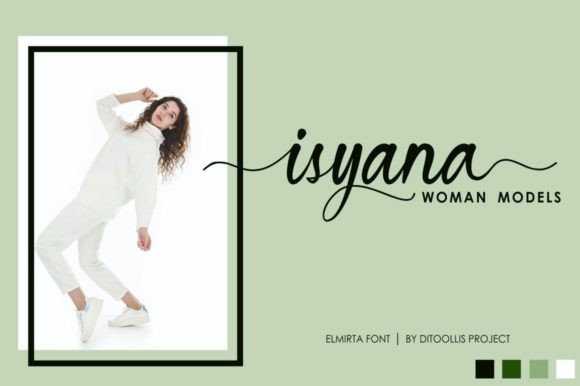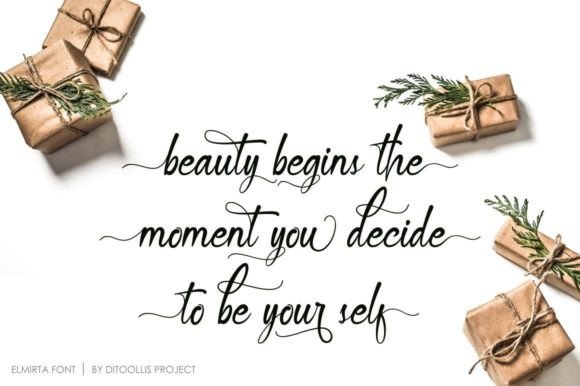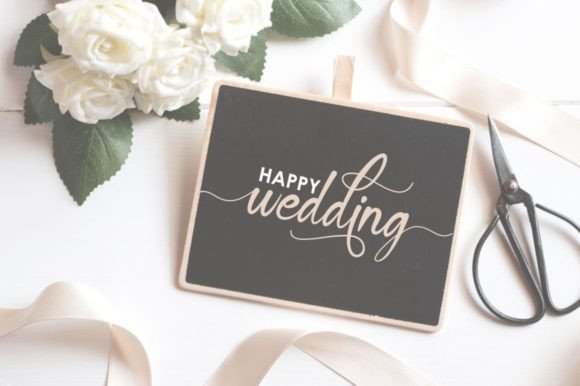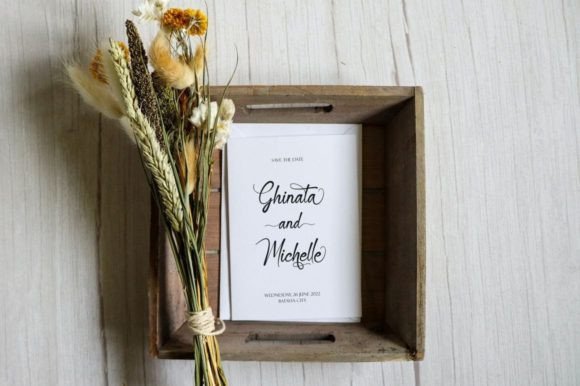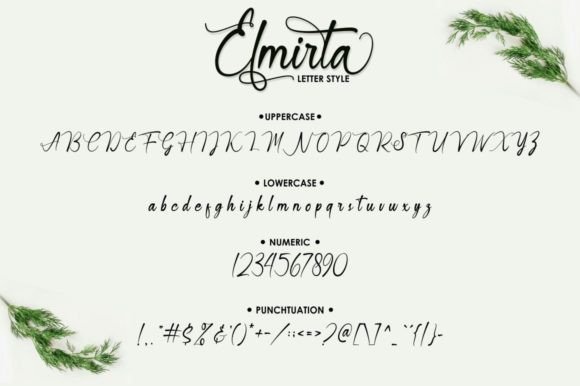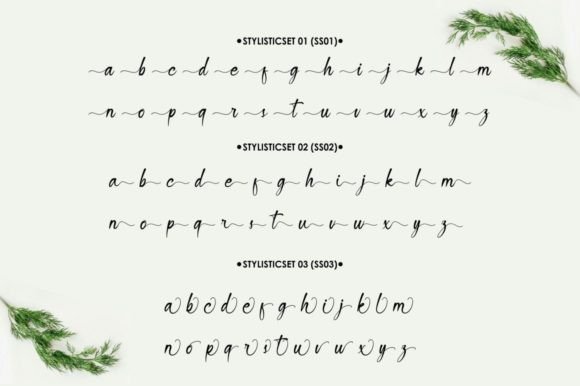
Discover the Elegance of Elmirta Font: A Modern Calligraphy Script
What Makes Elmirta Font Special?
Elmirta – A Calligraphy Script Font is a modern, versatile typeface perfect for various design projects, including business cards, logos, covers, comics, invitations, and more. Its PUA (Private Use Area) encoding allows easy access to all glyphs and swashes, making it a joy to work with.
What I Love About Elmirta Font
- ✨ Modern and Elegant Design: Elmirta boasts a contemporary look that’s perfect for designs that require a touch of sophistication.
- ✅ Versatility: Its wide range of applications, from business cards to comic designs, makes it a valuable addition to any designer’s toolkit.
- 🔍 PUA Encoding: The font’s PUA encoding ensures that accessing glyphs and swashes is straightforward, allowing for more creative freedom.
While Elmirta Font is exceptional, there are a few minor considerations:
- ⚠️ Learning Curve: For those new to using OpenType features or glyphs, there might be a slight learning curve. However, this is a minor hurdle compared to the font’s benefits.
- 🤔 Character Limitations: As with any script font, some characters or swashes might not perfectly match every design. A bit of creativity and experimentation usually solves this.
The Story Behind Elmirta Font
Elmirta Font was crafted with the modern designer in mind. Its creator aimed to produce a typeface that combines elegance with versatility, suitable for both digital and print designs. Inspired by contemporary calligraphy and script fonts, Elmirta brings a fresh perspective to the world of typography.
Q: Is Elmirta Font suitable for body text?
A: While Elmirta is stunning, its script nature makes it more suited for headlines or short paragraphs. For longer body text, a more readable font might be preferable.
Q: Does Elmirta Font include a wide range of languages?
A: Elmirta, being a PUA-encoded font, offers a variety of glyphs and swashes. However, its language support might be limited compared to more extensive Unicode fonts.